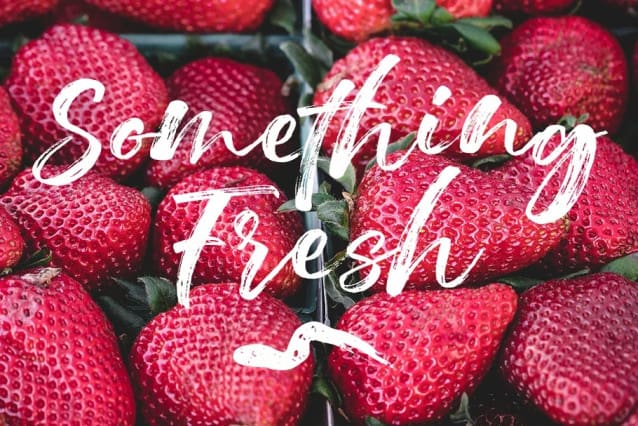
Wasatsh Brush Font
Wasatsh Brush Font a new font brushed textured with perfect . Can used for various purposes. such as the title, for projects brands, logos, product packaging, posters, invitations, greeting cards, news, blogs, everything including personal charm etc.
Wasatsh brush features Open type feature, including initial and terminal letters,ligatures and International support for most Western Languages is included.